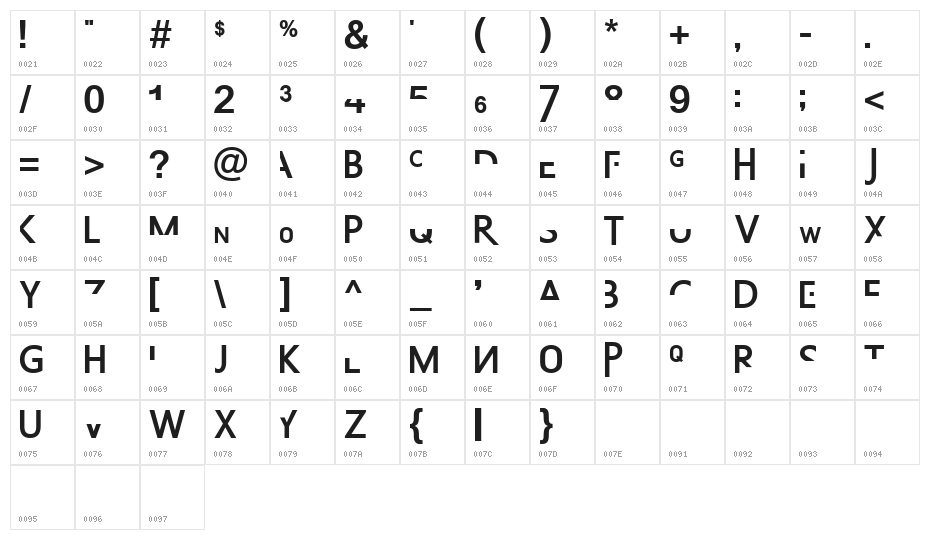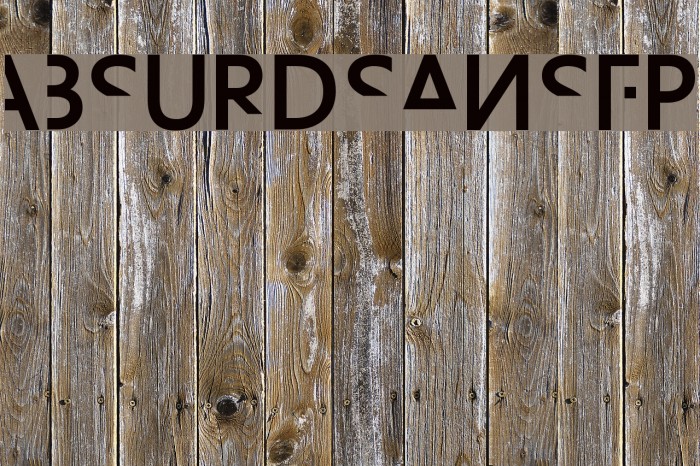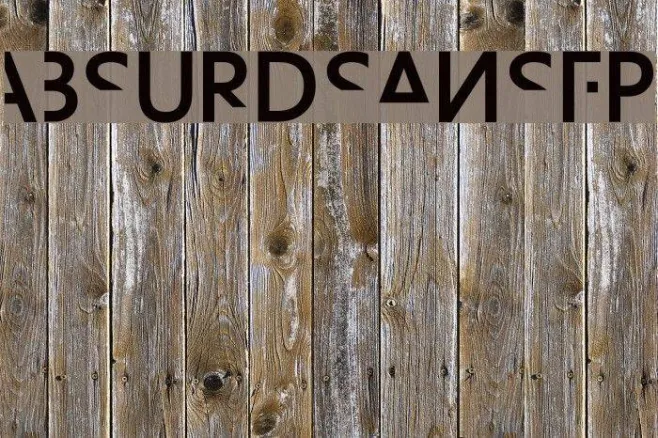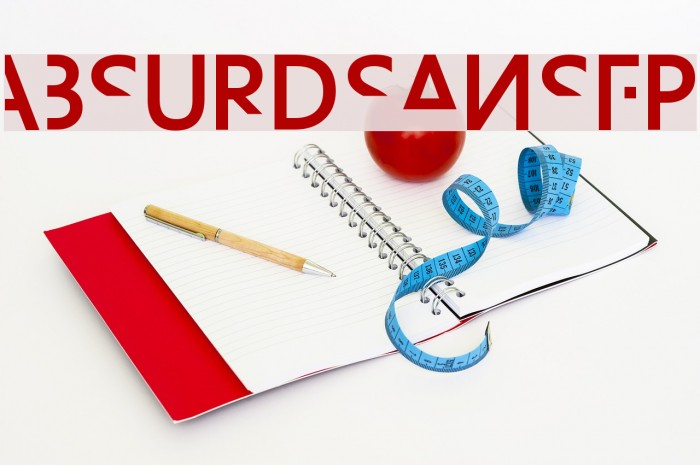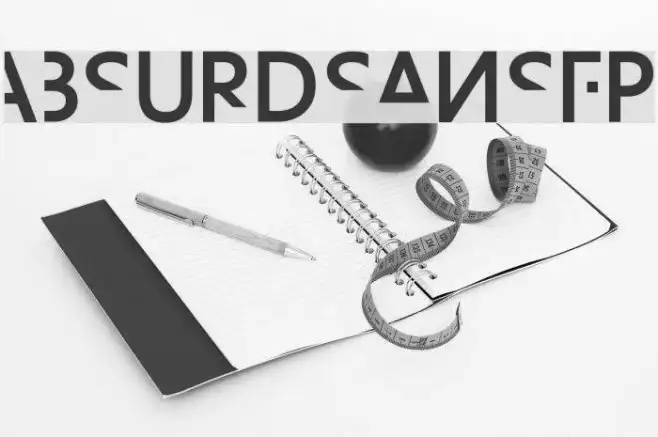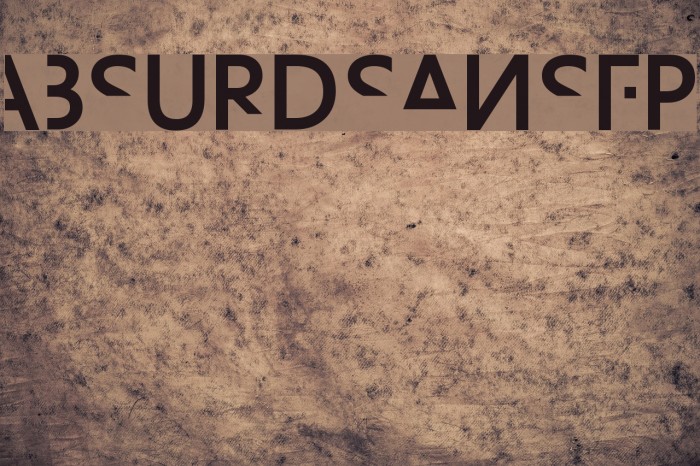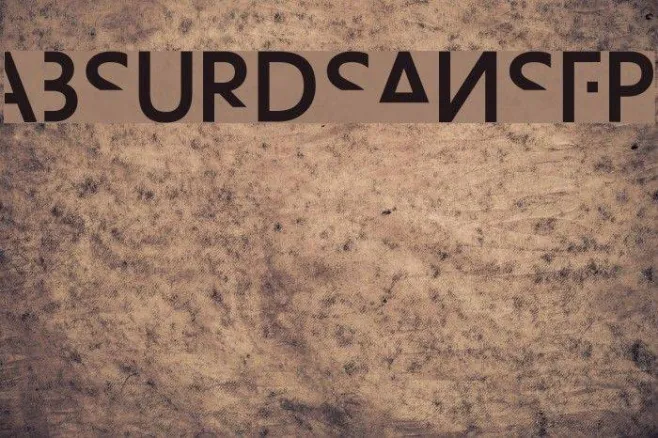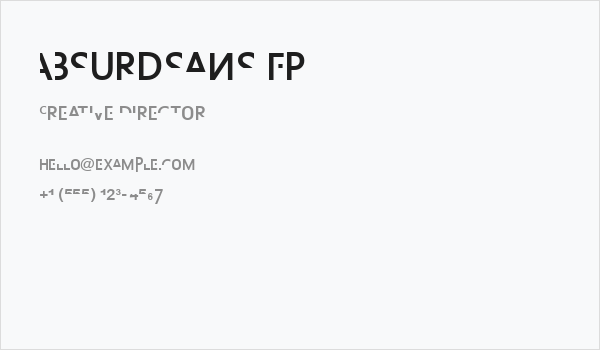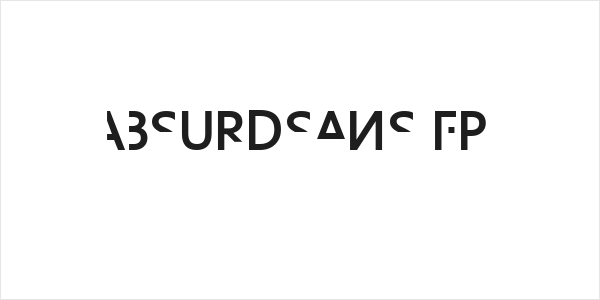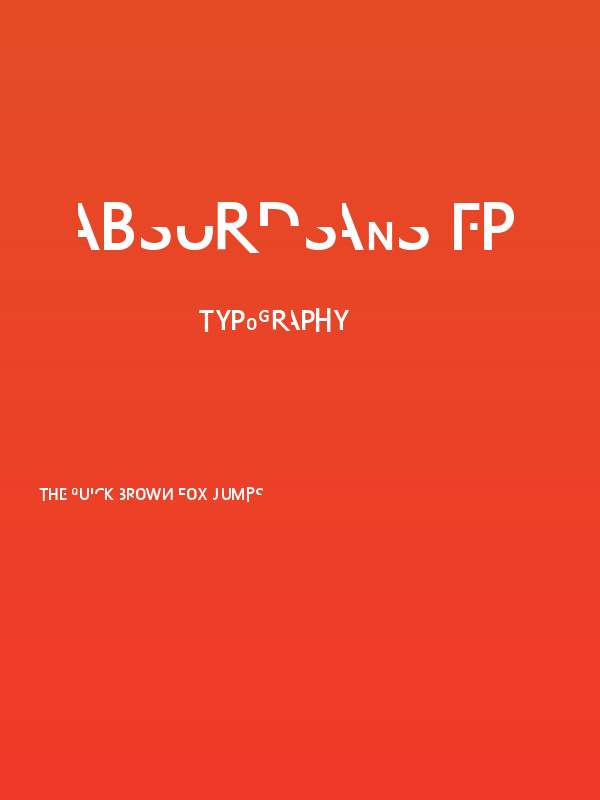
Absurdsans FP Font
Absurdsans FP Description
This font exhibits a unique and playful design, characterized by its unconventional and abstract letterforms. The characters are bold and feature a mix of geometric and organic shapes, creating a sense of movement and dynamism. The uppercase and lowercase letters share a similar style, with some letters incorporating unexpected angles and curves. Numbers and special characters maintain the same quirky aesthetic, making the font suitable for creative and artistic projects. The overall appearance is modern and experimental, appealing to those looking for a distinctive and eye-catching typeface.
| Overall Style | Modern, Experimental |
| Use Case | Logos, Posters, Creative Headlines |
| Proposed Projects | Ideal for creative projects, artistic posters, modern branding, and unique logo designs. |